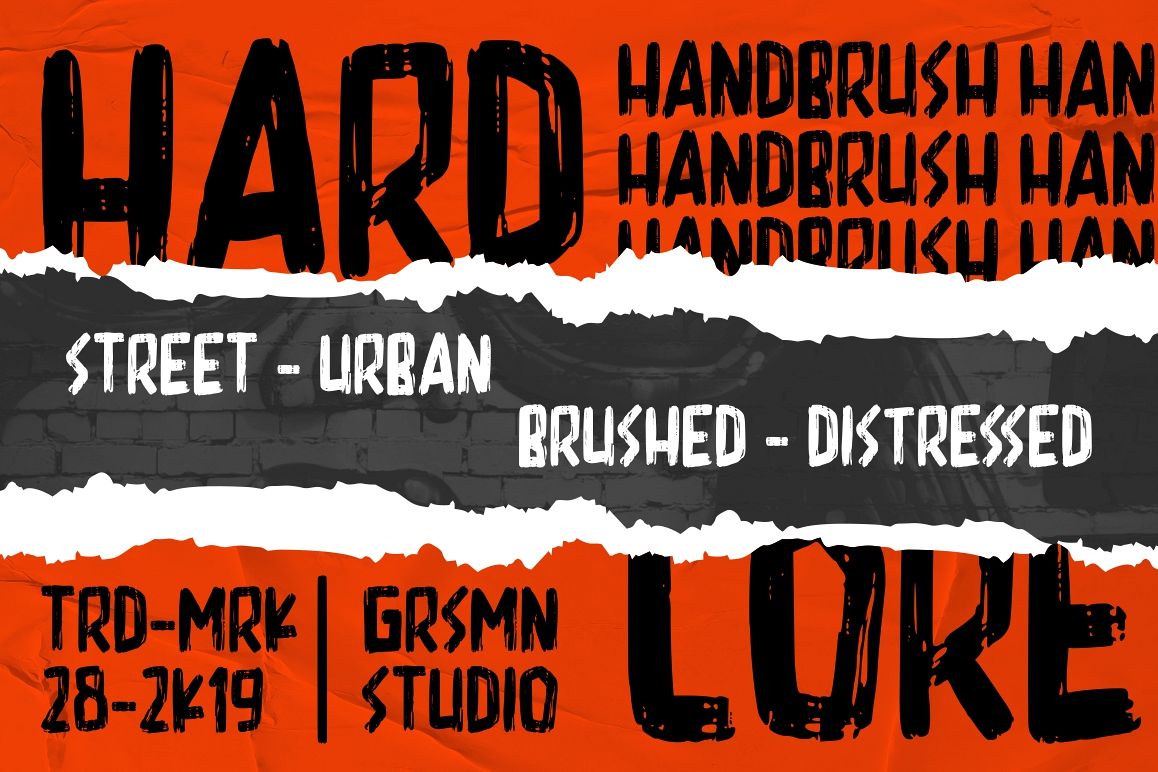
Hardcore
Introducing Hardcore - Display Font
Hardcore  made with a fresh urban edge; delivering a stylish script which is guaranteed to add an eye-catching appeal to your logo designs, brand imagery, quotes, product packaging, merchandise & social media posts
- All Caps letters
- Numbers & Punctuation
- Multilanguage Support